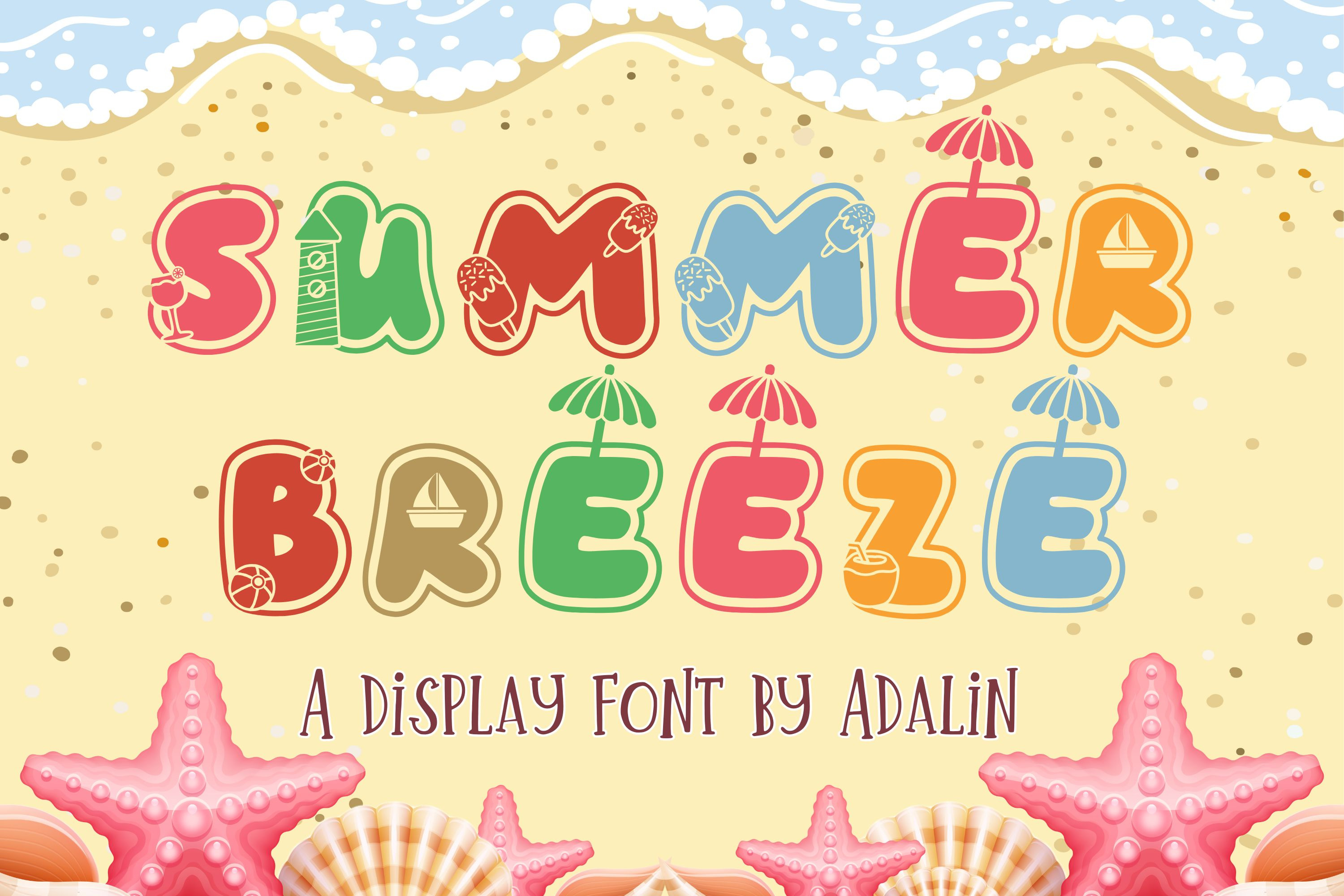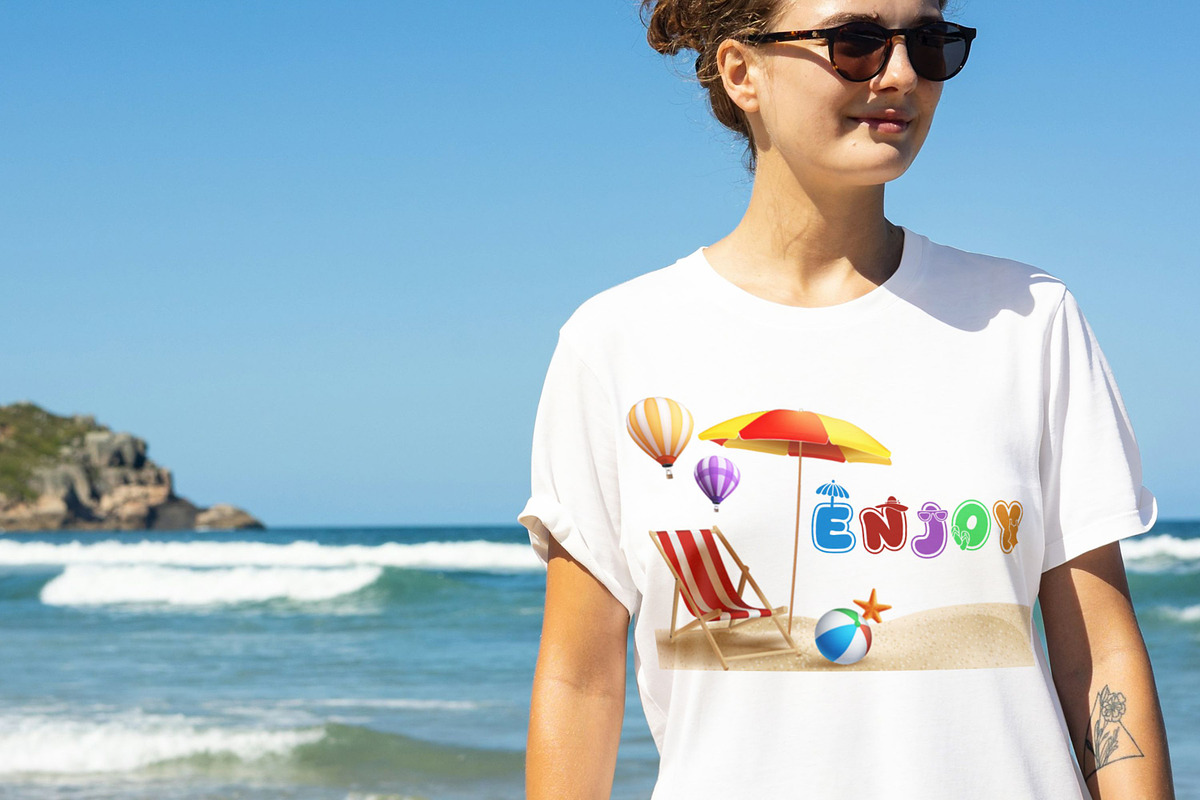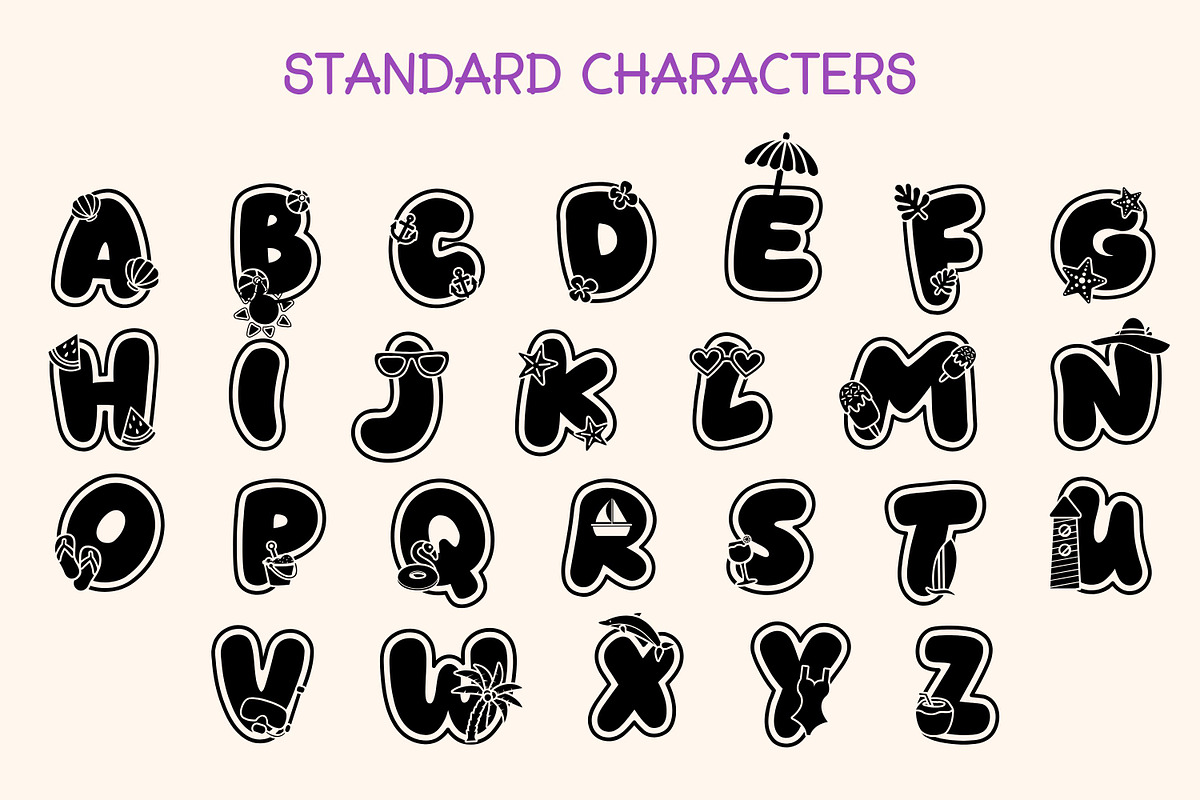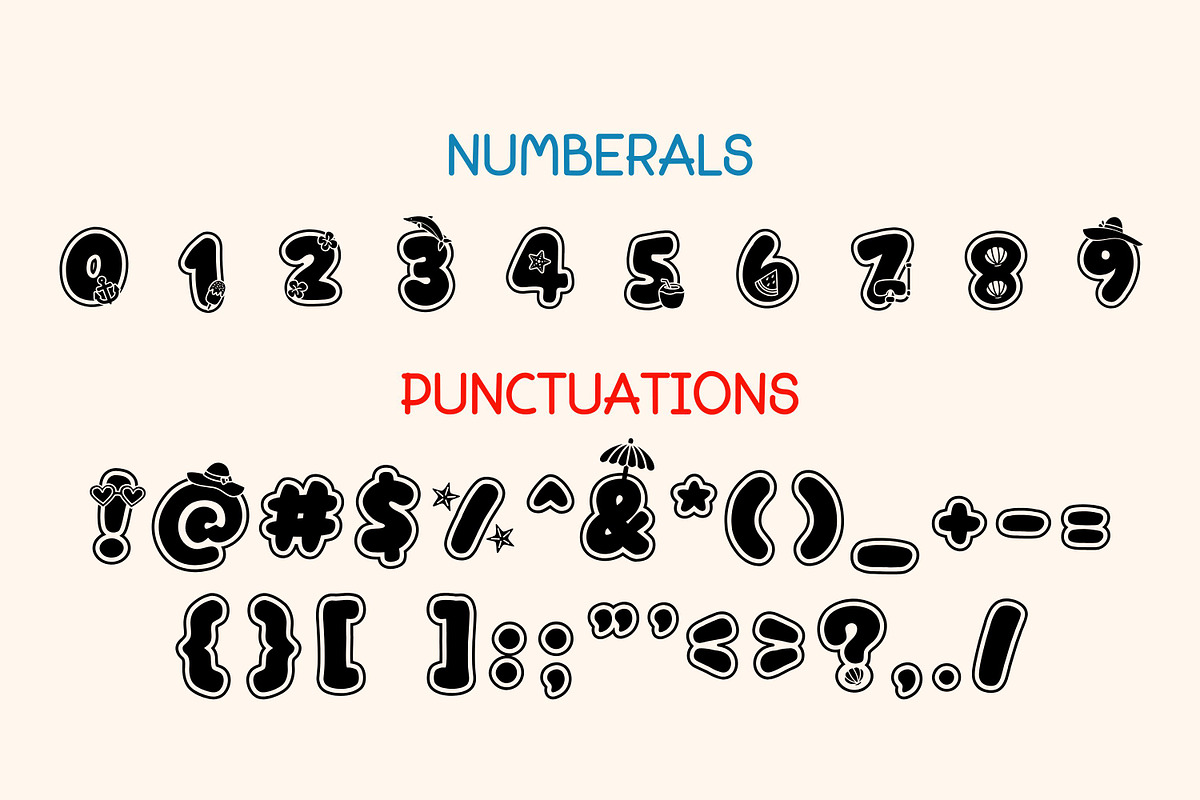
Summer Breeze Font
Indulge in the enchanting charisma of Summer Breeze font – a captivating font that flawlessly marries beauty and functionality. Summer Breeze font can effortlessly blend into a myriad of projects – from enhancing gift labels and beautifying book jackets, to revitalizing posters and strengthening packaging, personalizing products, defining logos, and beyond. Plunge into the rejuvenating allure of Summer Breeze font and embrace a universe where craftsmanship intertwines with imagination.